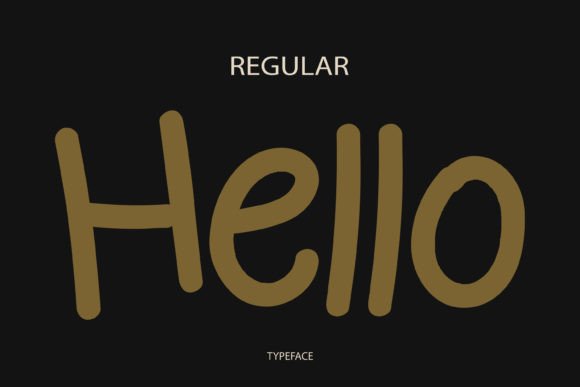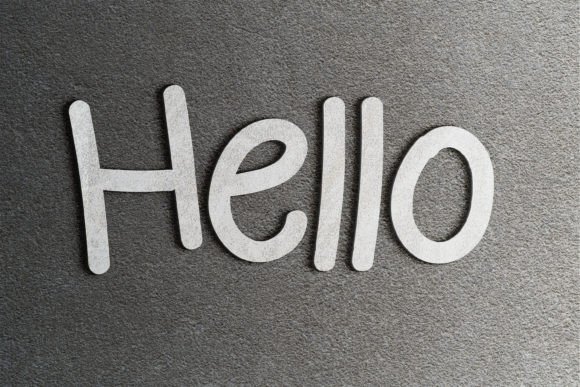
About Hello Font
Hello font is a fun and quirky handwritten typeface designed to bring charm and playfulness to your creative ideas. With its unique and lively style, Hello is perfect for a wide variety of projects where you want to add a distinctive, handcrafted look.
Playful and Quirky Handwritten Style
The Hello font features irregular strokes and casual letterforms that give your text a spontaneous and joyful feel. Its lively design adds personality and character, making it an excellent choice for projects that need an expressive and informal touch.
Ideal Uses for Hello Font
This versatile font is ideal for:
Craft projects and DIY designs
Invitations and greeting cards
Social media graphics and posts
Logos and branding with a fun vibe
Posters, flyers, and merchandise
Use Hello fon to infuse your projects with energy and creativity.
Why Choose Hello Font?
Designers love Hello for its:
Playful and quirky handwritten style
Unique and expressive letterforms
Flexibility across digital and print media
Add Fun and Personality to Your Designs
Typography defines the mood of your work. The Hello fon brings a fresh, lively energy, helping your designs stand out with charm and whimsy. It’s perfect for anyone wanting to express creativity with a fun, handcrafted flair.
Final Thoughts on Hello Font
In summary, Hello fon is a fun and quirky handwritten script perfect for designers seeking to add playful personality to their projects. Add Hello to your fon collection for joyful, creative designs.